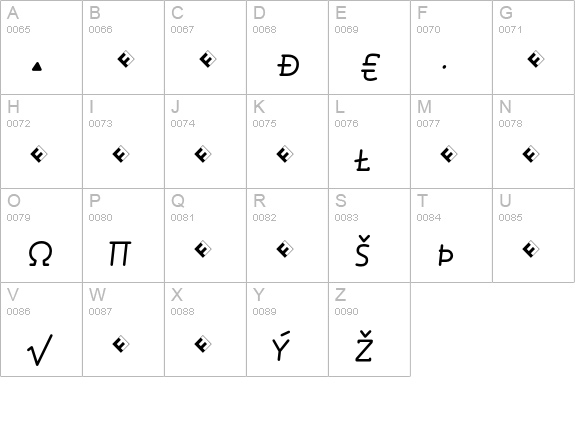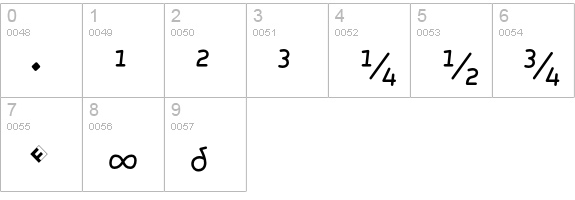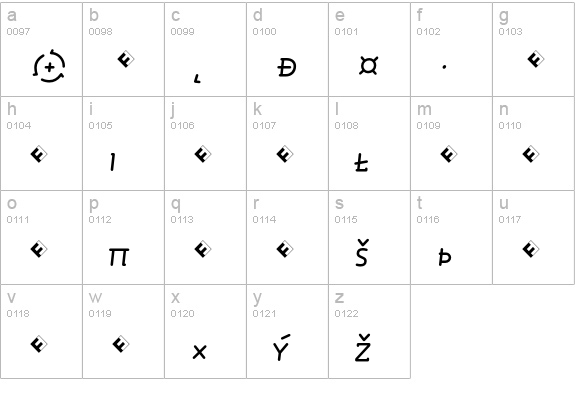
Roice-RegularItalicSCExpert font is a stylish and sophisticated italic typeface that exudes elegance and charm. Perfect for adding a touch of class to your designs, this font features subtle curves and unique flourishes that make it stand out. What sets Roice-RegularItalicSCExpert apart is its expertly crafted design, which allows it to be used in a variety of design projects, from branding and advertising to invitations and social media graphics. The font's slanted italic style adds a dynamic and modern flair to any text, making it a versatile choice for both print and digital applications. Best of all, Roice-RegularItalicSCExpert is available for free download at FontsMarket.com. Whether you're a seasoned designer looking to add a new font to your collection or a beginner exploring typography for the first time, this font is a must-have for anyone looking to elevate their designs with a touch of sophistication and style. Download Roice-RegularItalicSCExpert today and see the difference it can make in your projects!